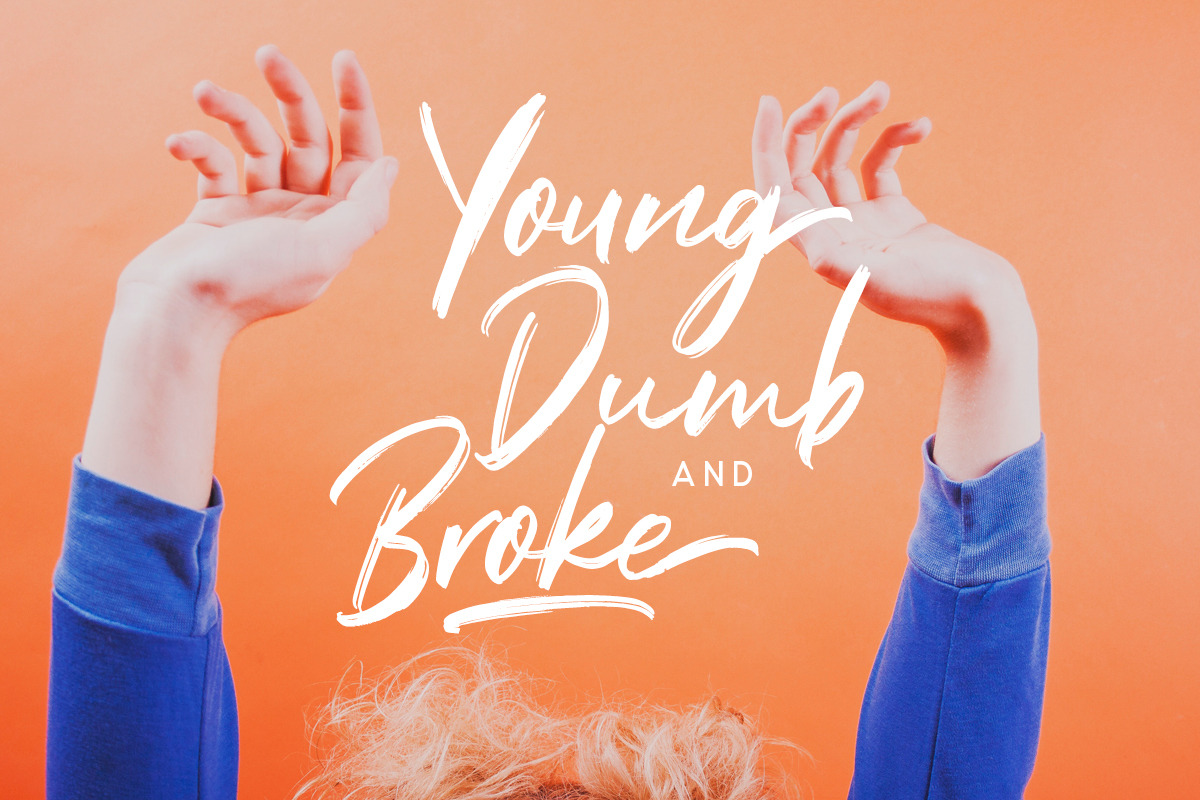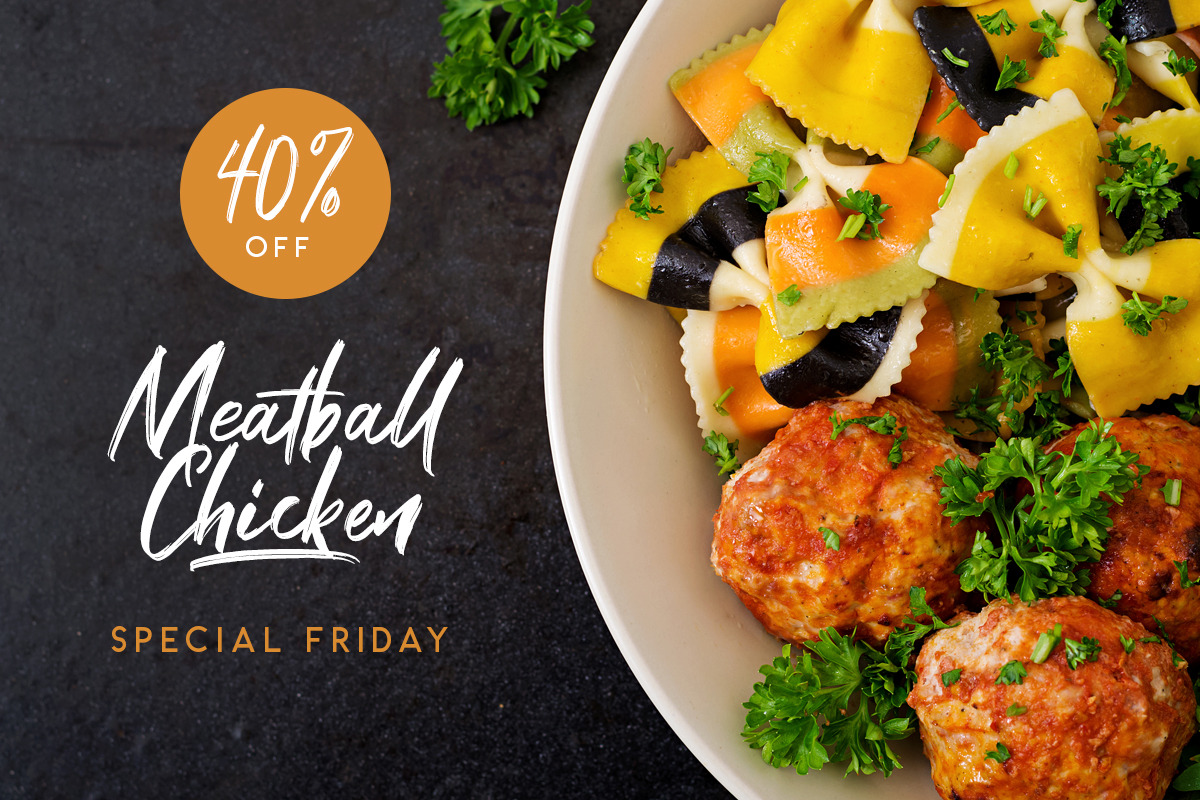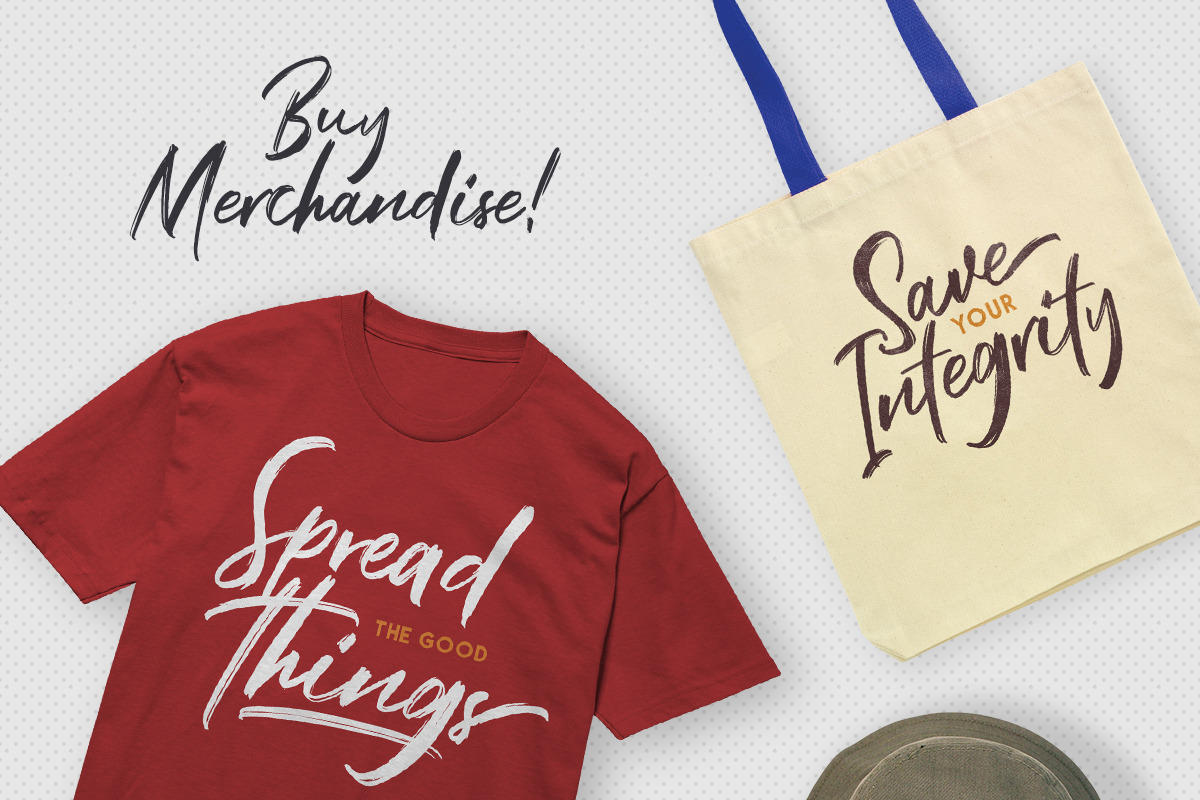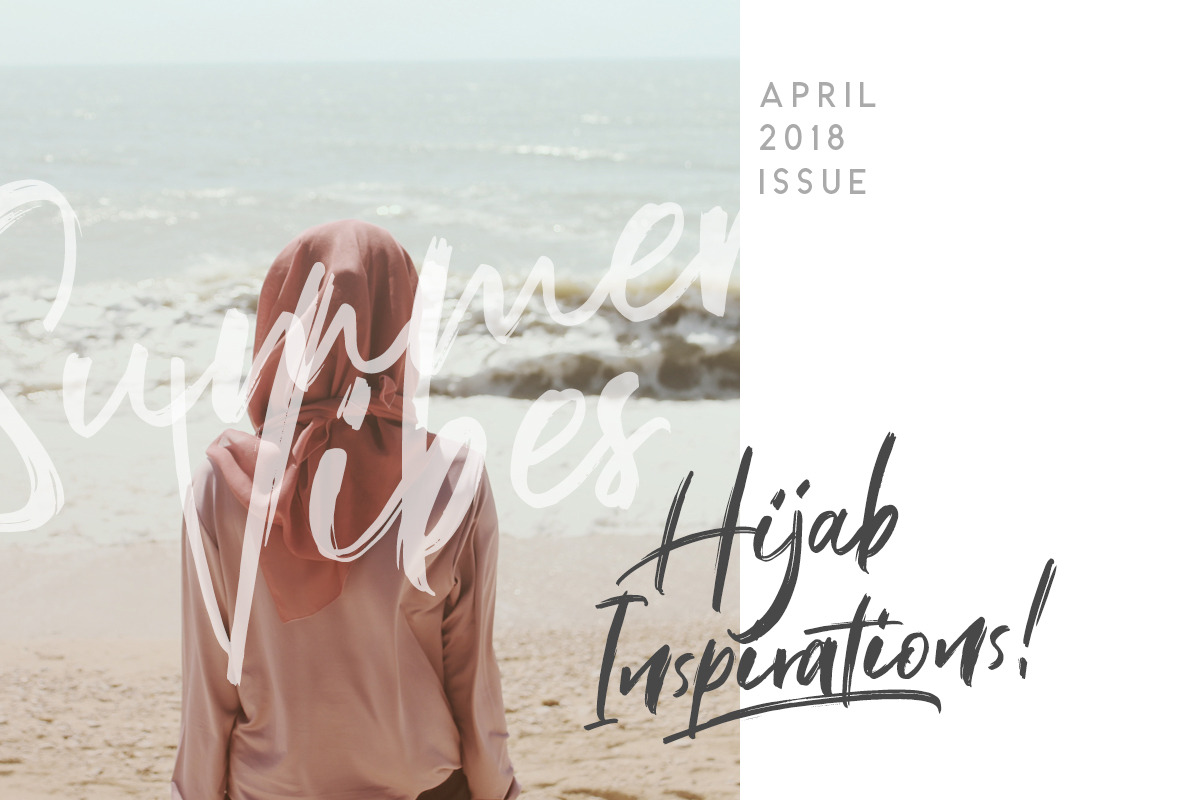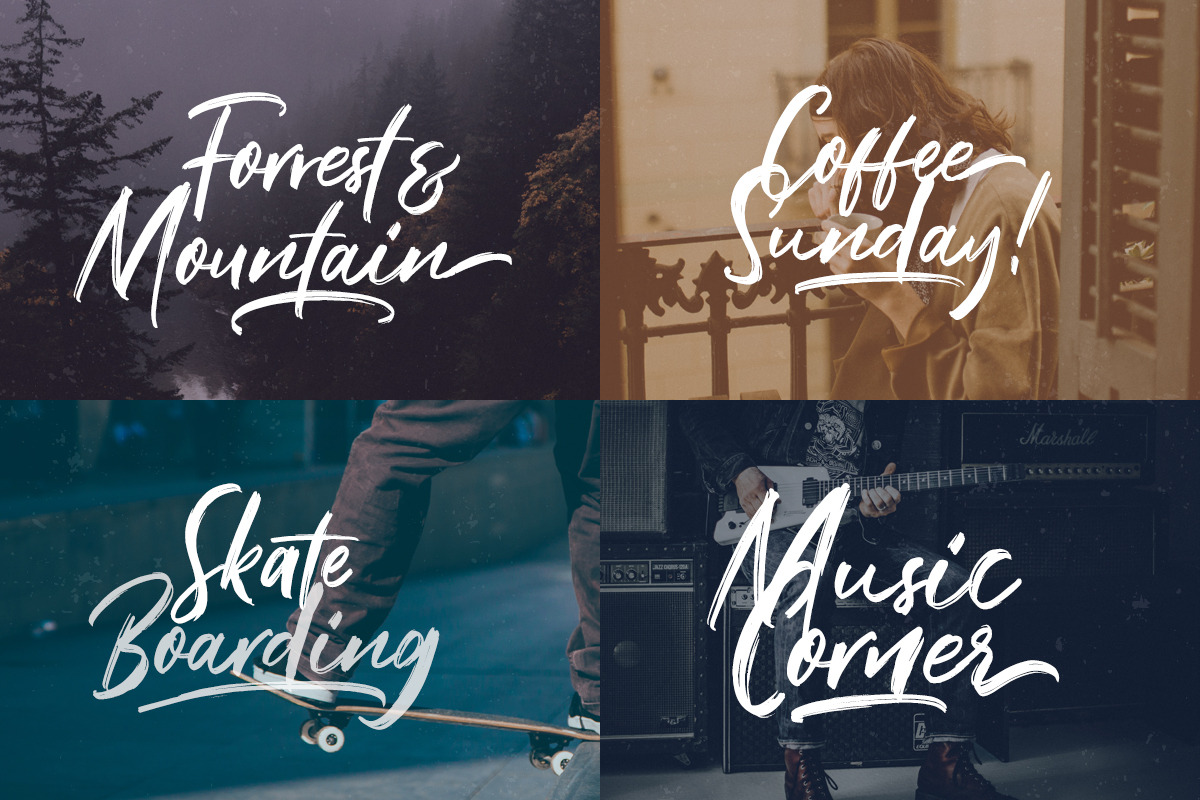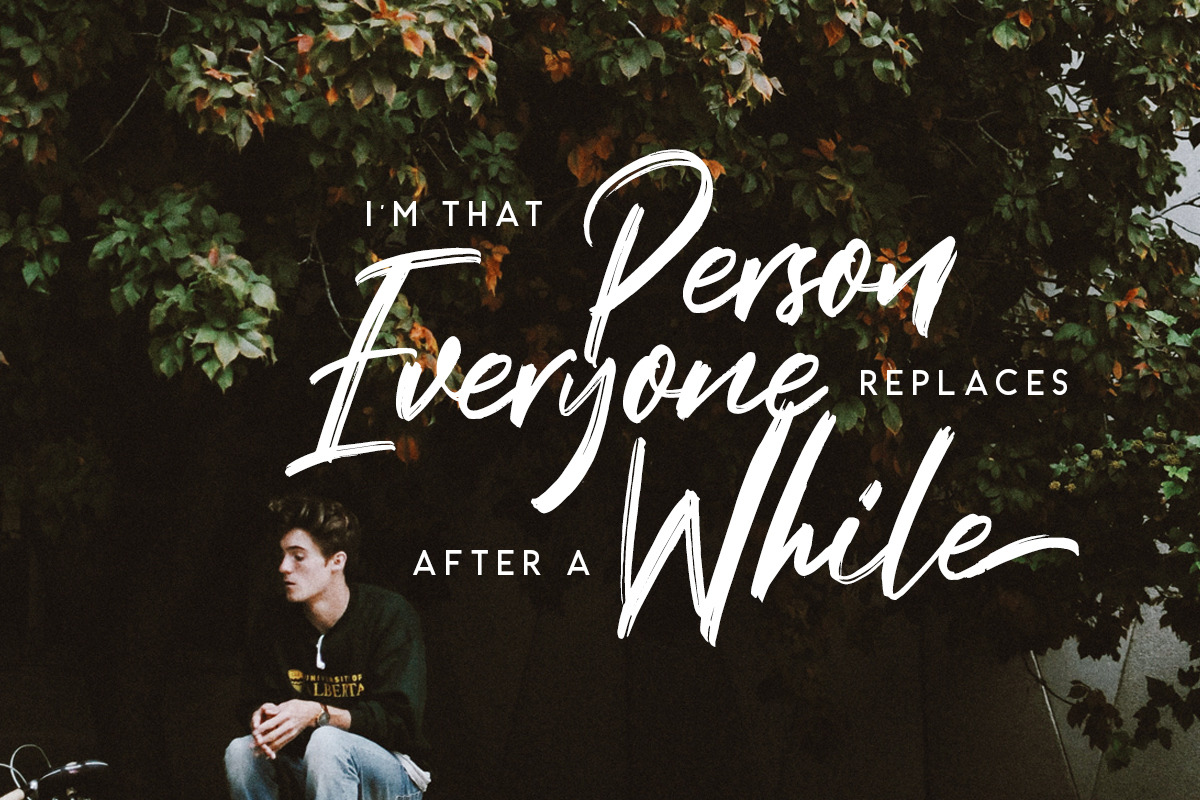
Black Mountage - Brush Font
Introducing, Black Mountage - Dry Brush Font!
Black Mountage is brush font that contain stylistic alternate, swash, etc to create your own customized signature, quotes, and also great for apparel. This font is support multi language. Available in OTF and TTF. Also Support PUA.